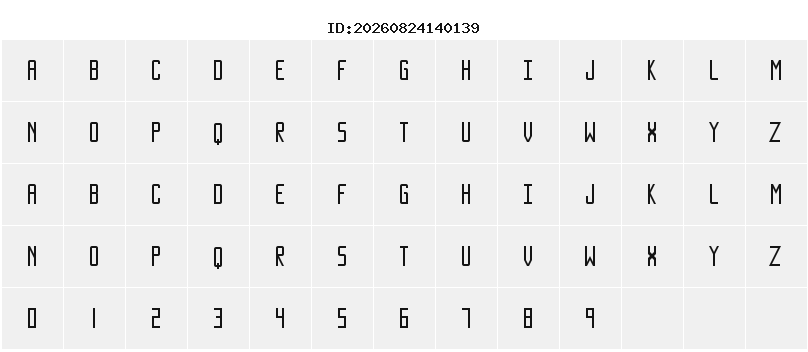
SUNDANCE NEUE.ttf is a modern, elegant sans-serif font designed for ultimate readability and visual harmony. Perfect for branding, headlines, web design, and print materials.